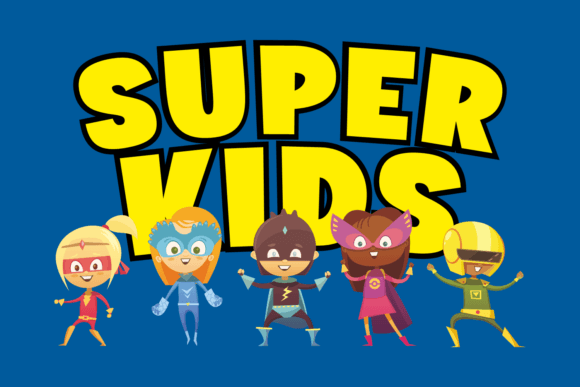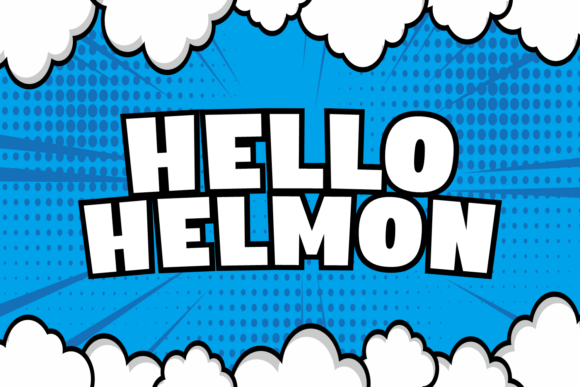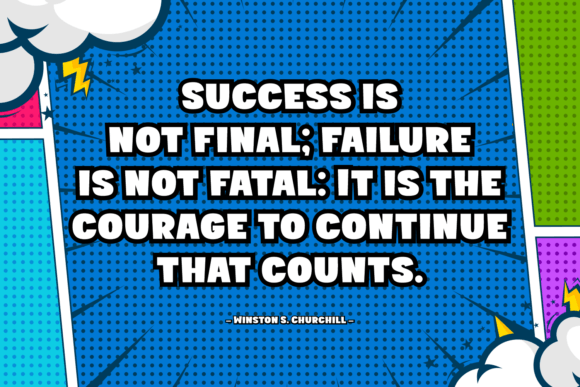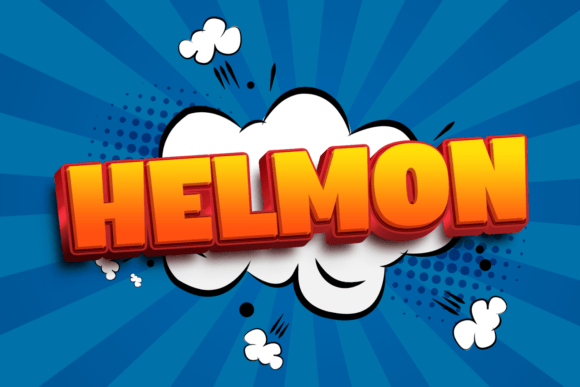
Introduction to Helmon Font
Helmon is a chunky comic-style display font.
Thick and beautiful, this set of characters is the perfect choice for projects that require an eye-catching look Use it to create memorable posters, book covers, apparel, banners, advertising materials, cards, headlines, titles, and more.